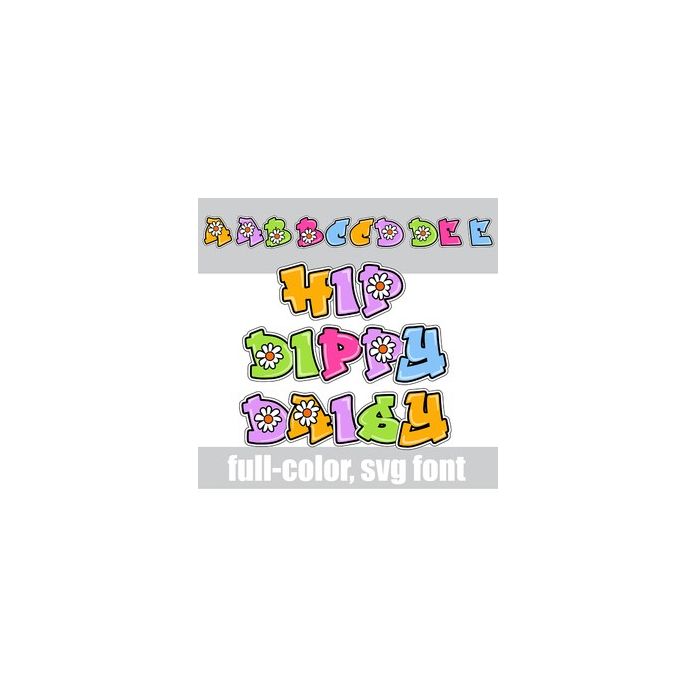
This full-color font features a graffiti style font and whimsical daisies. There is an alt case w/ additional colors you can access through your system or Silhouette's glyph map.